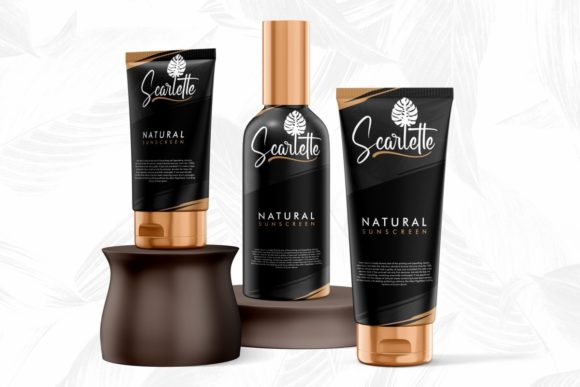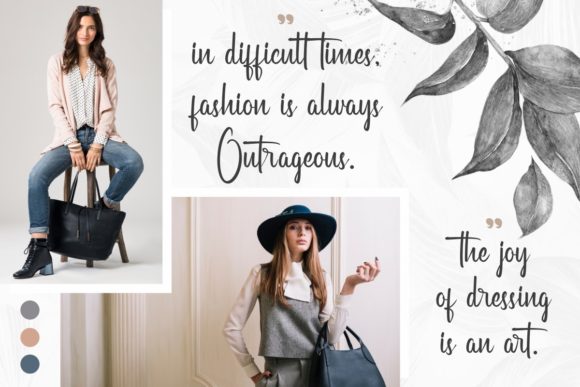
About Cafetoria Font
Cafetoria is an elegant handwritten font. Skillfully designed to elevate the look of any project, this gorgeous font is here to impress. Use it in your most exquisite designs! This font is PUA encoded which means you can access all of the glyphs and swashes with ease!